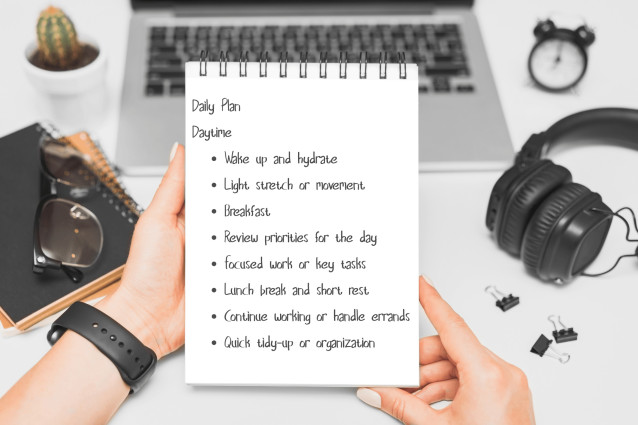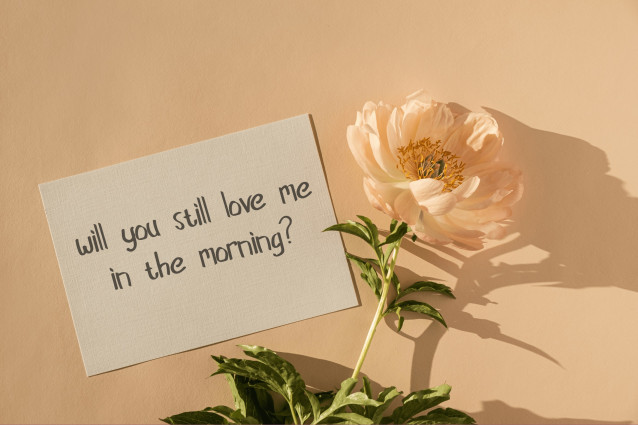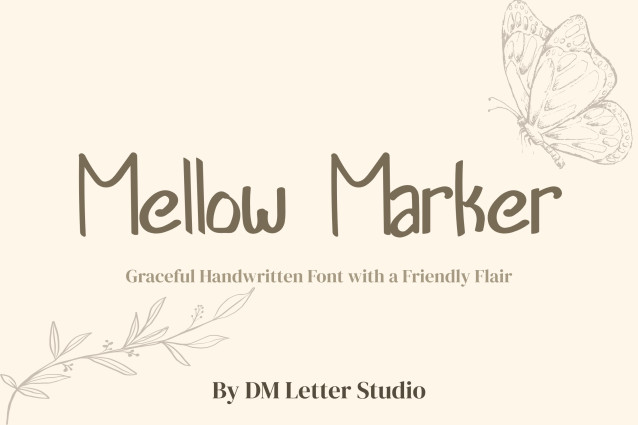
Mellow Marker Font
Mellow Marker Font is a relaxed and playful handwritten font designed with the natural flow of a marker pen. Its rounded strokes and casual rhythm create a friendly, approachable look that feels warm and personal. Perfect for projects that need a touch of fun without losing readability, Mellow Marker shines in both print and digital formats.
This font is versatile enough for branding, social media, digital planners, stickers, invitations, and fun merchandise. Use it for bold motivational quotes, playful logos, or kid-friendly designs that call for energy and charm. Its natural marker style makes every project feel handmade, approachable, and memorable.